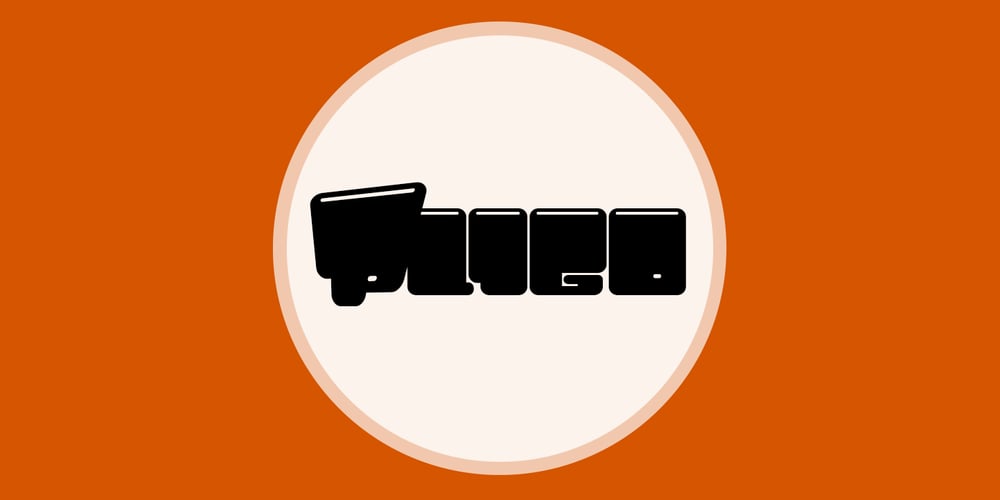
Pligo
Pligo font
Pligo Font Family was designed by Måns Grebäck and published by Mans Greback. Pligo contains 1 styles and family package options. Pligo – a balloon, graffiti, liquorice, party and cartoon typeface by Måns Grebäck.